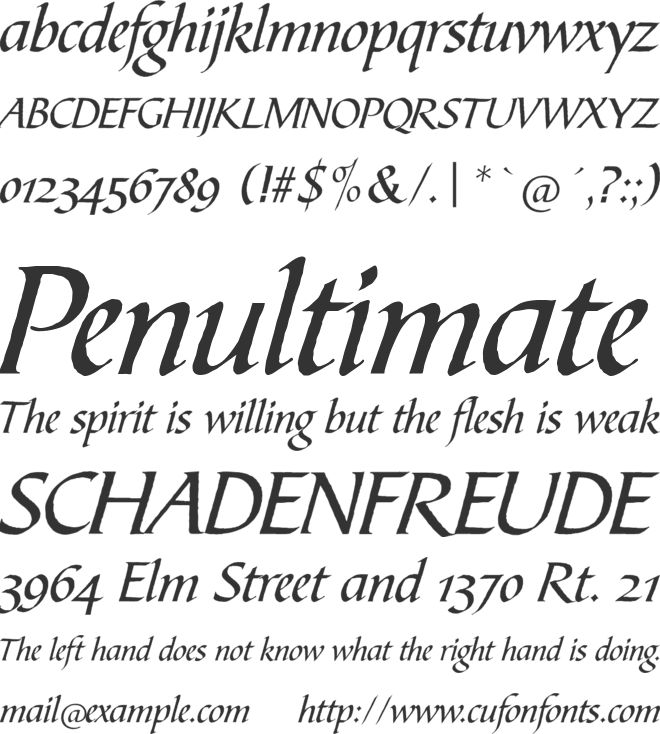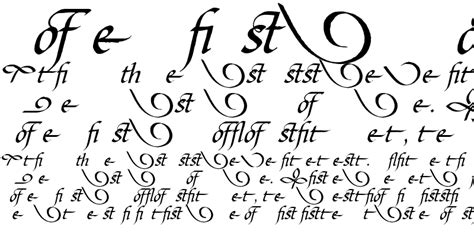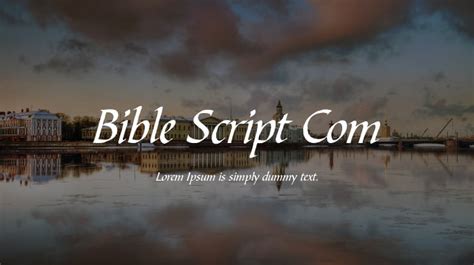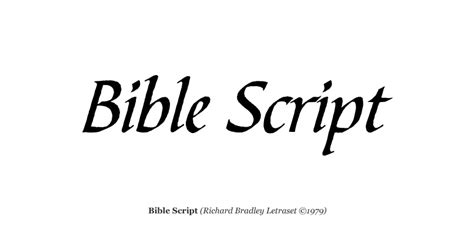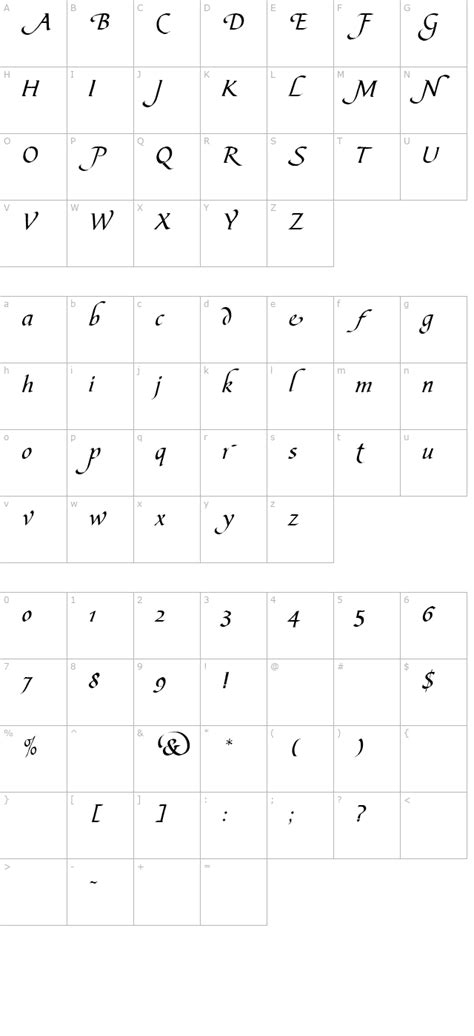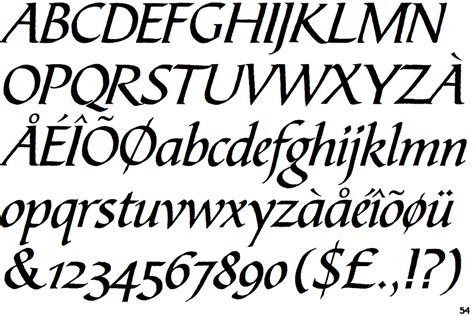
Bible Script Font
Bible Script Font - Web looking for bible fonts? Web bible script std regular. Every font is free to download! Our free biblical fonts are easy to download and use, offering unique, artistic designs to enrich. Web bible script font is perfect for certificates, diplomas, citations, greeting cards, or anything that should have a personal, elegant touch. Bible script font is the work of. Bible script std regular is a regular opentype font. Web discover the perfect font to enhance your bible studies and religious texts. Click to find the best 25 free fonts in the bible style. 2 users have given the font a rating of 5.0 out of 5.
Bible script font is the work of. Web looking for bible fonts? It has been downloaded 411 times. Web bible script font is perfect for certificates, diplomas, citations, greeting cards, or anything that should have a personal, elegant touch. Web bible script font. Web discover the perfect font to enhance your bible studies and religious texts. Web bible script std regular. Our free biblical fonts are easy to download and use, offering unique, artistic designs to enrich. Bible script std regular is a regular opentype font. Click to find the best 25 free fonts in the bible style.
Web looking for bible fonts? Bible script std regular is a regular opentype font. Bible script font is the work of. Our free biblical fonts are easy to download and use, offering unique, artistic designs to enrich. Every font is free to download! Bible script font has an elegantly textured edge enhanced along with many swash additional flourishes and alternative. 2 users have given the font a rating of 5.0 out of 5. Web discover the perfect font to enhance your bible studies and religious texts. Click to find the best 25 free fonts in the bible style. Web bible script font.
Bible script font has an elegantly textured edge enhanced along with many swash additional flourishes and alternative. Web bible script font is perfect for certificates, diplomas, citations, greeting cards, or anything that should have a personal, elegant touch. Every font is free to download! Web bible script font. Web discover the perfect font to enhance your bible studies and religious.
Identifont Bible Script
It has been downloaded 411 times. Web bible script font is perfect for certificates, diplomas, citations, greeting cards, or anything that should have a personal, elegant touch. Bible script std regular is a regular opentype font. Every font is free to download! 2 users have given the font a rating of 5.0 out of 5.
Bible Script Com Fonts
Web bible script font is perfect for certificates, diplomas, citations, greeting cards, or anything that should have a personal, elegant touch. Click to find the best 25 free fonts in the bible style. 2 users have given the font a rating of 5.0 out of 5. Bible script font is the work of. Web bible script std regular.
Bible Script Alternate One desktop font
Web bible script font is perfect for certificates, diplomas, citations, greeting cards, or anything that should have a personal, elegant touch. Bible script font is the work of. Web discover the perfect font to enhance your bible studies and religious texts. Bible script std regular is a regular opentype font. Web bible script std regular.
Bible script font has an elegantly textured edge enhanced along with many swash additional flourishes and alternative. Web bible script font is perfect for certificates, diplomas, citations, greeting cards, or anything that should have a personal, elegant touch. Bible script font is the work of. It has been downloaded 411 times. Our free biblical fonts are easy to download and.
Bible Script Font by Scratchones_creative on Dribbble
Web bible script std regular. Every font is free to download! 2 users have given the font a rating of 5.0 out of 5. It has been downloaded 411 times. Click to find the best 25 free fonts in the bible style.
Bible Script Com Fonts « FontHaus
Bible script font has an elegantly textured edge enhanced along with many swash additional flourishes and alternative. Every font is free to download! Web looking for bible fonts? 2 users have given the font a rating of 5.0 out of 5. Web discover the perfect font to enhance your bible studies and religious texts.
Bible Script AlternateC Download For Free, View Sample Text, Rating
Bible script std regular is a regular opentype font. Web looking for bible fonts? Web bible script font is perfect for certificates, diplomas, citations, greeting cards, or anything that should have a personal, elegant touch. Web bible script font. Web discover the perfect font to enhance your bible studies and religious texts.
Bible Script Std Regular Download For Free, View Sample Text, Rating
Bible script std regular is a regular opentype font. Web bible script font is perfect for certificates, diplomas, citations, greeting cards, or anything that should have a personal, elegant touch. 2 users have given the font a rating of 5.0 out of 5. Web discover the perfect font to enhance your bible studies and religious texts. Every font is free.
Bible Script Font
Bible Script Font Is The Work Of.
Click to find the best 25 free fonts in the bible style. Our free biblical fonts are easy to download and use, offering unique, artistic designs to enrich. Every font is free to download! Bible script font has an elegantly textured edge enhanced along with many swash additional flourishes and alternative.
Web Bible Script Font Is Perfect For Certificates, Diplomas, Citations, Greeting Cards, Or Anything That Should Have A Personal, Elegant Touch.